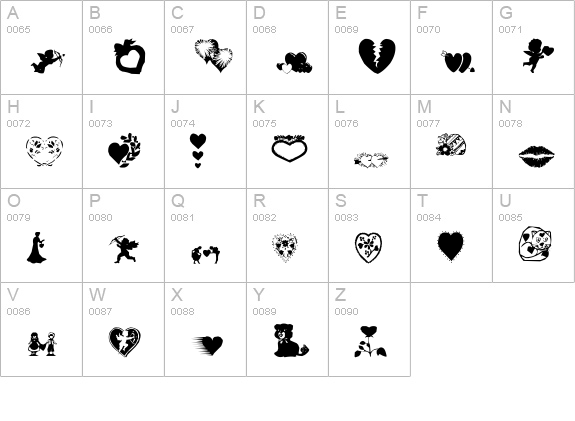
Aosvalentine font is a delightful and charming typeface designed to add a touch of whimsy to your projects. With its elegant yet playful design, it is perfect for greeting cards, invitations, posters, and more. The curvaceous lines and intricate details of Aosvalentine bring a sense of romance and sophistication to any design. Best of all, Aosvalentine font is completely free for personal and commercial use. You can easily download this beautiful font at FontsMarket.com and start using it in your projects today. Don't miss out on the opportunity to add a touch of love and creativity to your designs with Aosvalentine font.